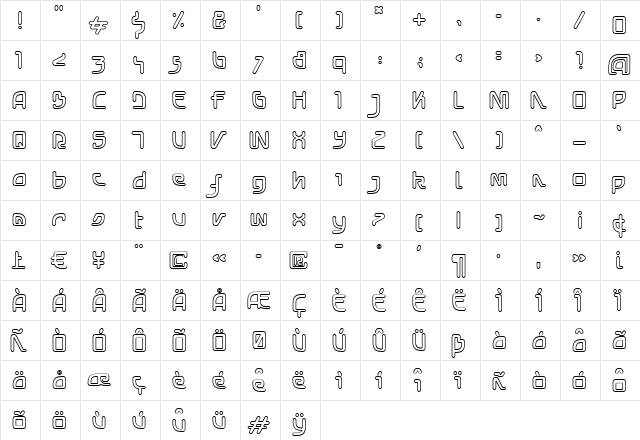
NeoTokio Regular
Design Context for NeoTokio Typeface
NeoTokio is a composed and adaptable typeface that performs quietly and consistently across a wide range of design contexts.